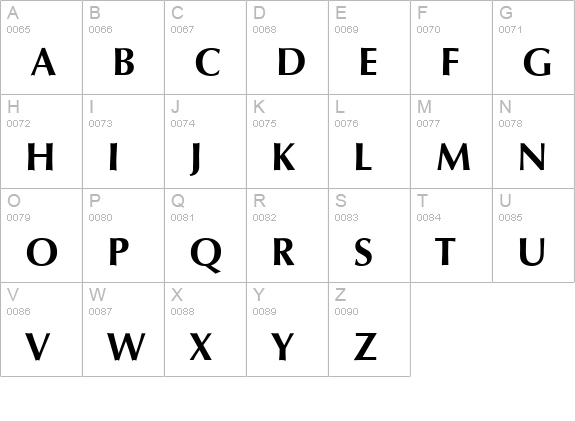
QTOptimum Bold Font Details
QTOptimum Bold is a strong, high-contrast variant in the QTOptimum typeface family \xE2\x80\x94 well suited to headlines, attention-grabbing titles, and strong calls-to-action.
QTOptimum Bold font is a visually striking and versatile typeface that exudes confidence and boldness. With its strong and commanding letterforms, this font is perfect for making a statement and grabbing attention in any design project. The bold weight of QTOptimum adds an extra level of impact, making it ideal for headlines, titles, and any text that needs to stand out on the page. Whether used in print or digital media, this font will make a lasting impression. What sets QTOptimum Bold font apart is not just its boldness, but also its exceptional clarity and legibility. Even at smaller sizes, the characters remain sharp and easy to read, ensuring that your message is conveyed with precision and impact. But that's not all - QTOptimum Bold font is also available for free download at FontsMarket.com. This means that you can easily access and use this impressive typeface without any cost, making it an excellent choice for budget-conscious designers and creatives. With its striking appearance, versatility, and free accessibility, QTOptimum Bold font is a must-have for anyone looking to create visually stunning designs. So go ahead and download this font from FontsMarket.com to add a touch of boldness and professionalism to your next project.